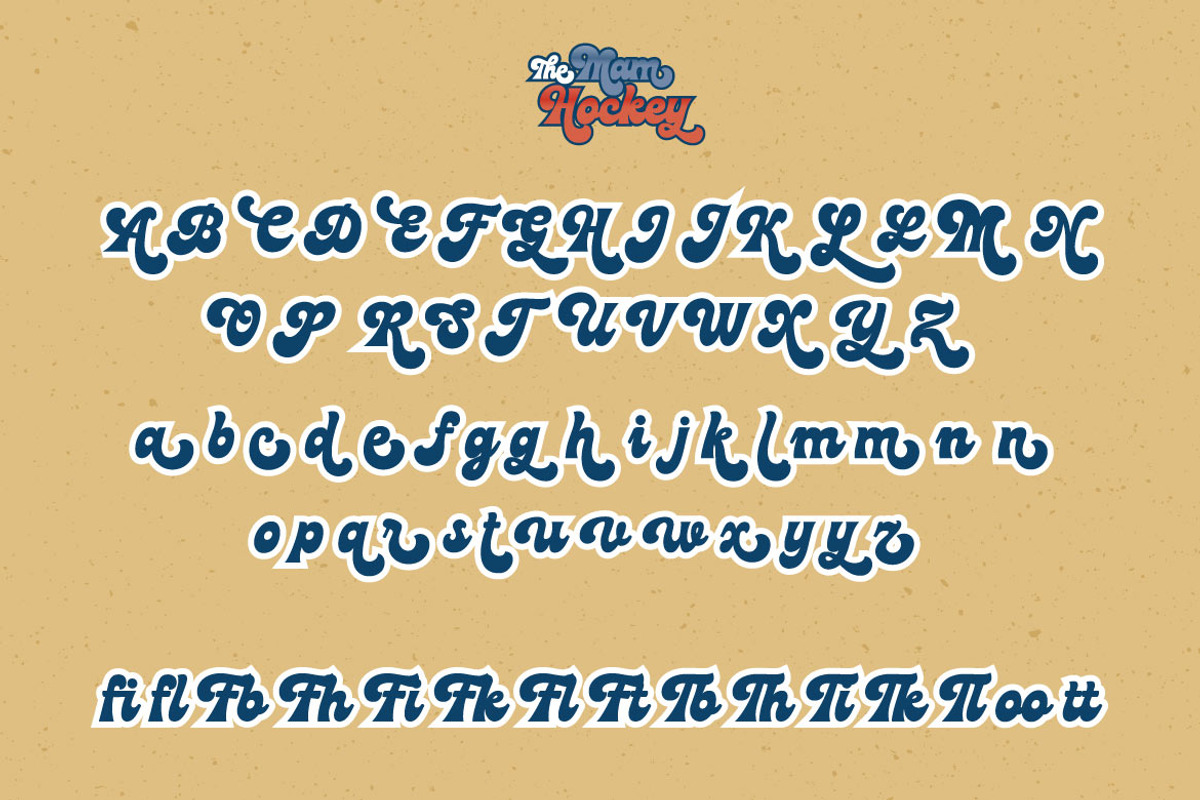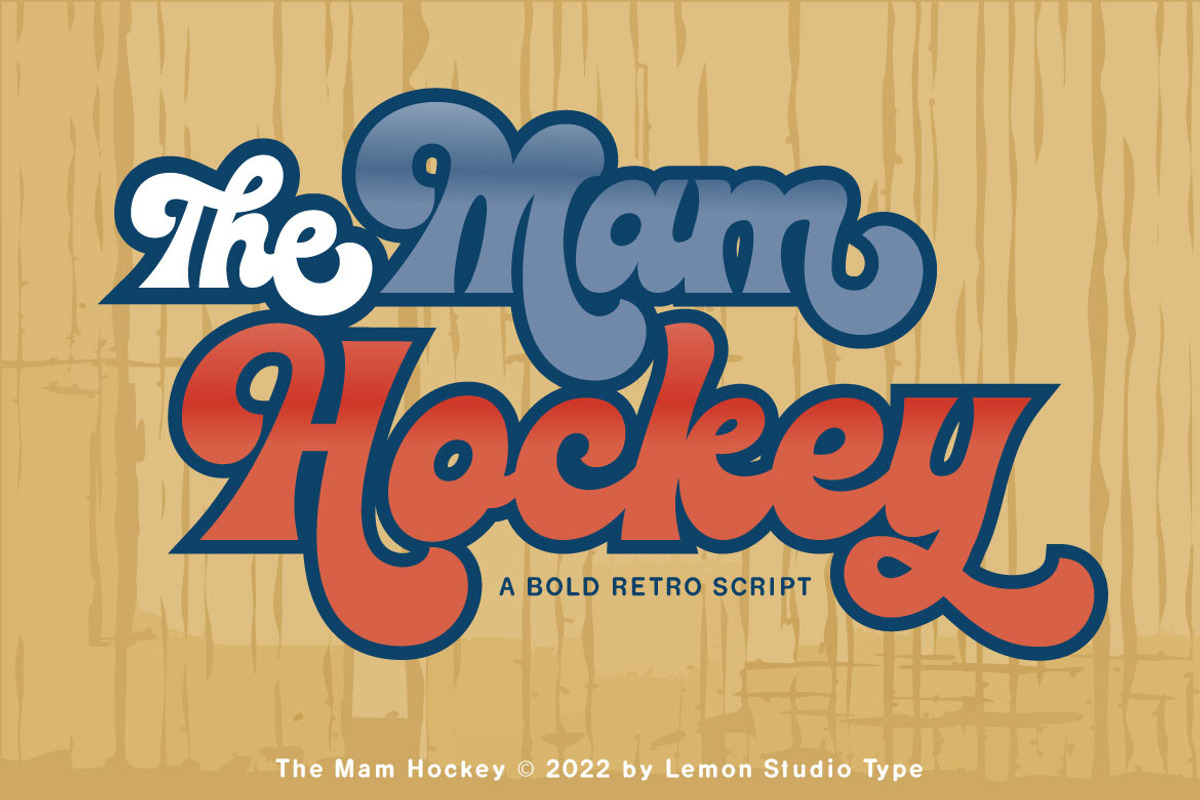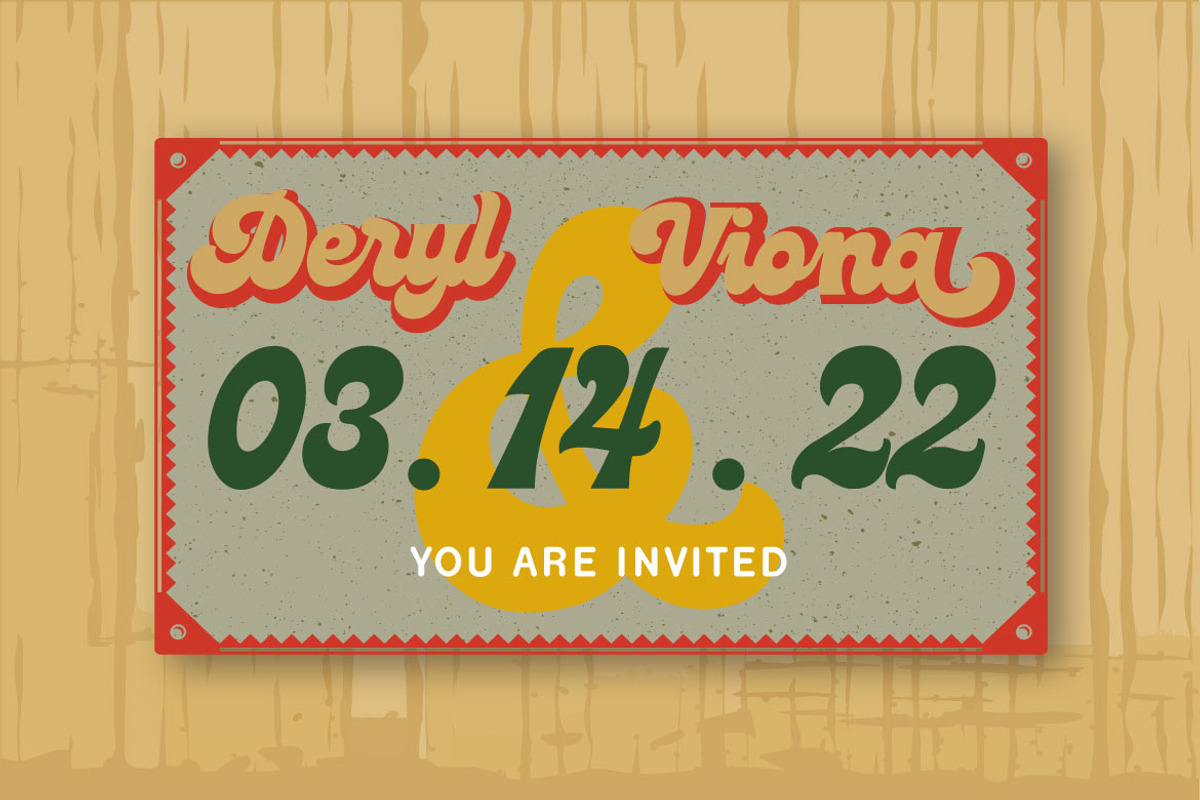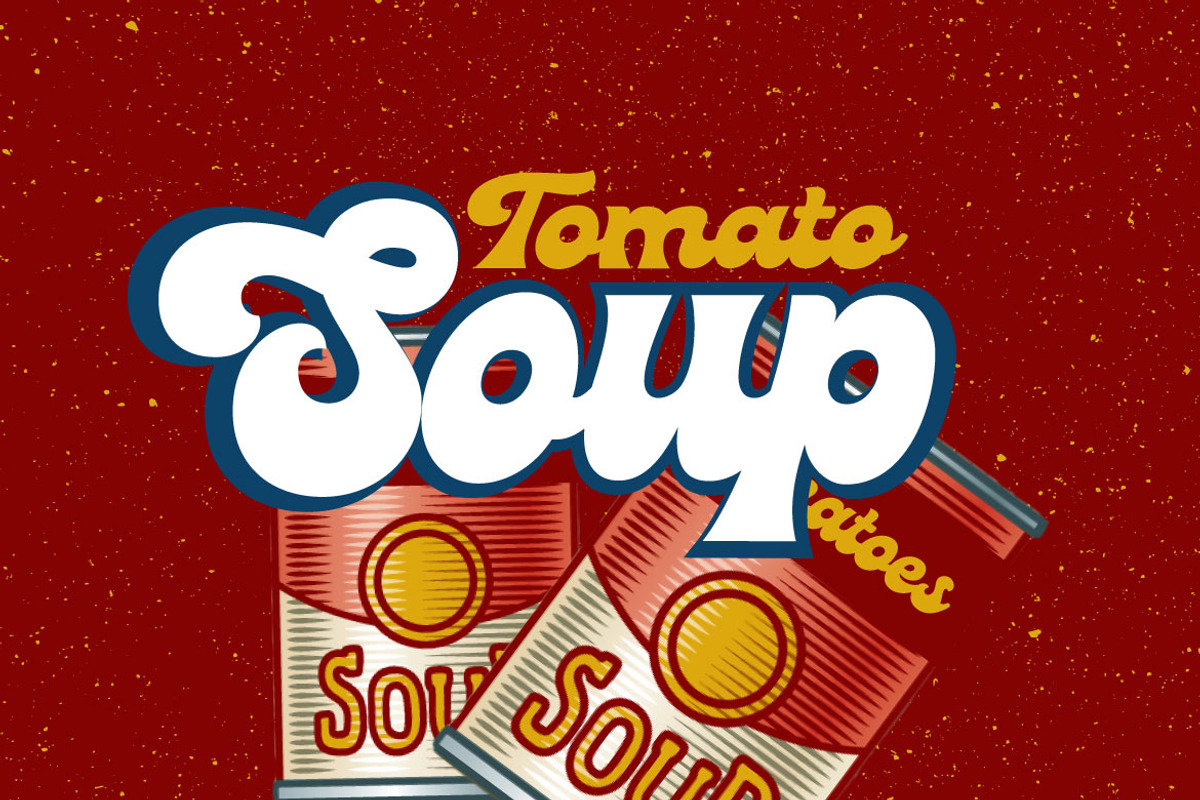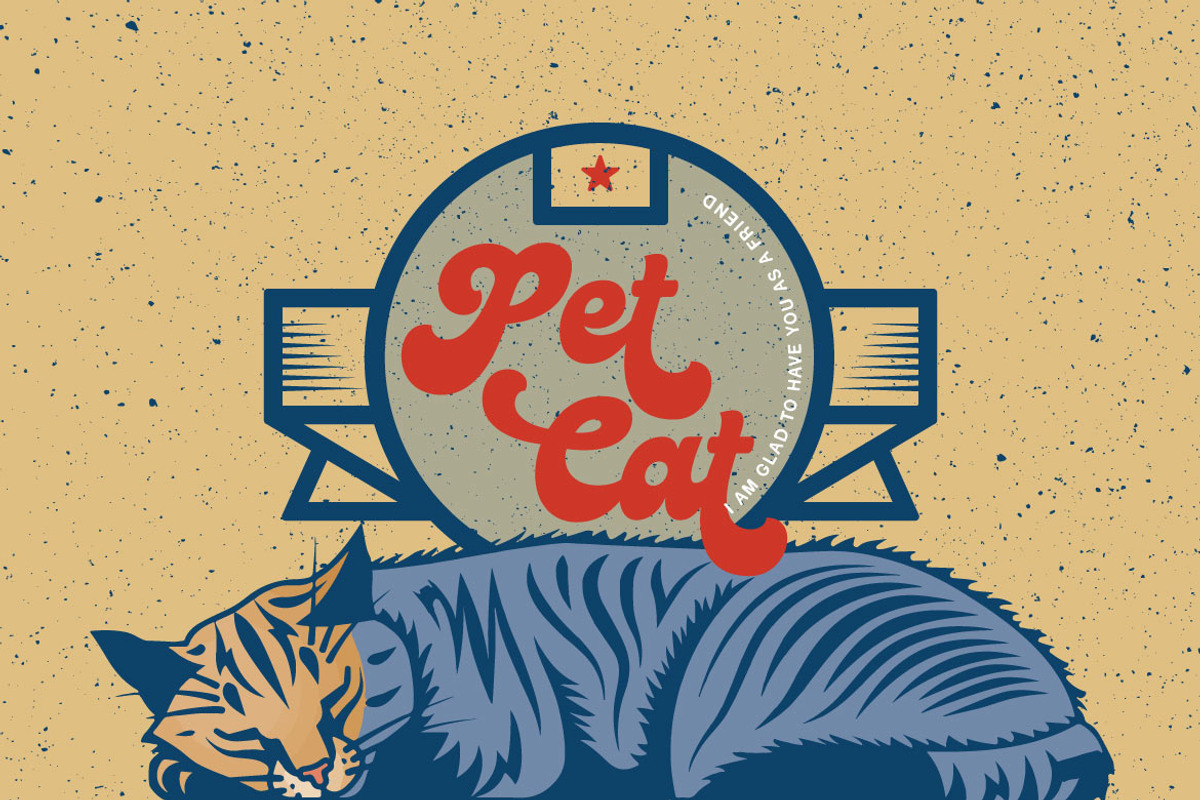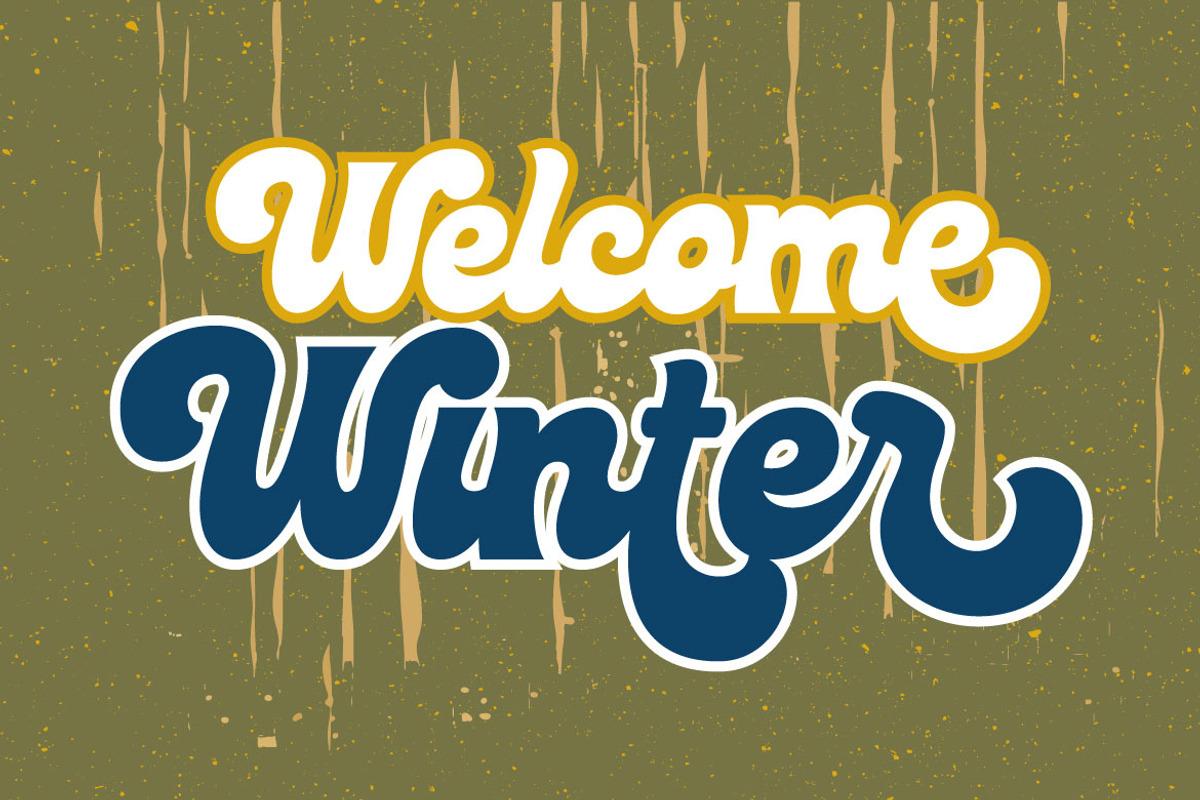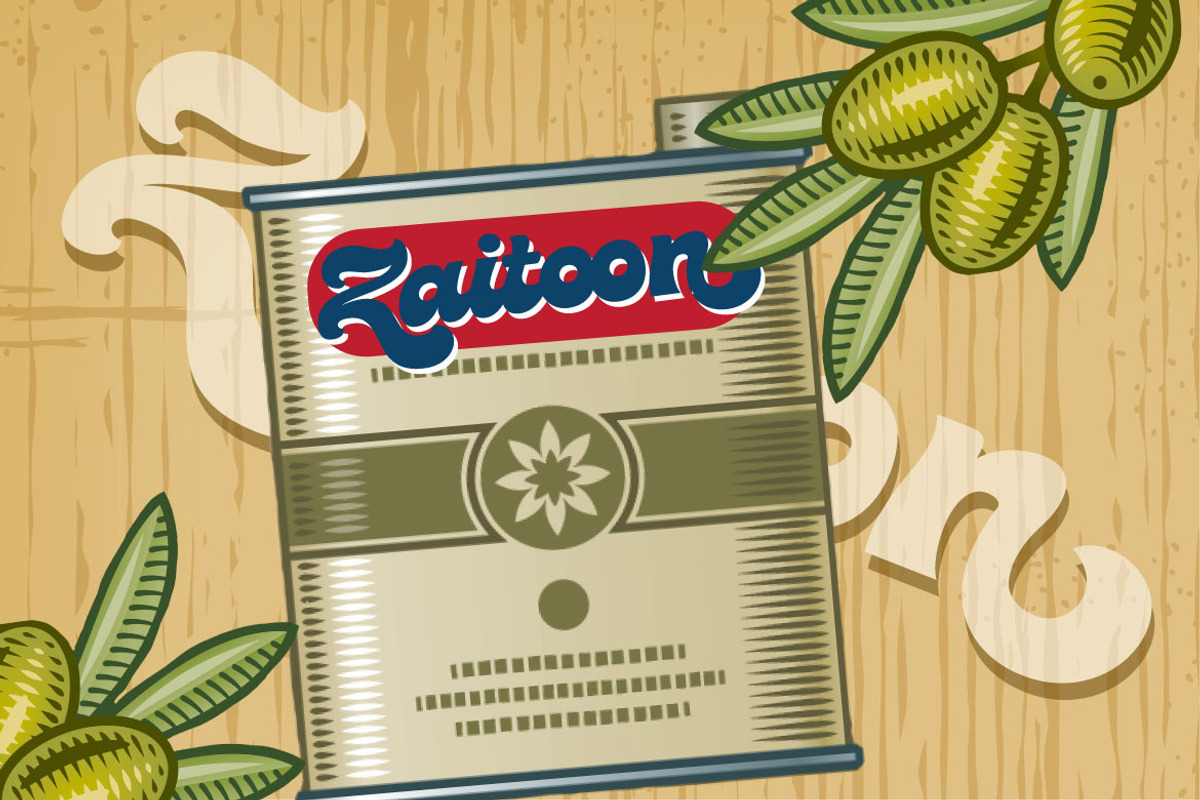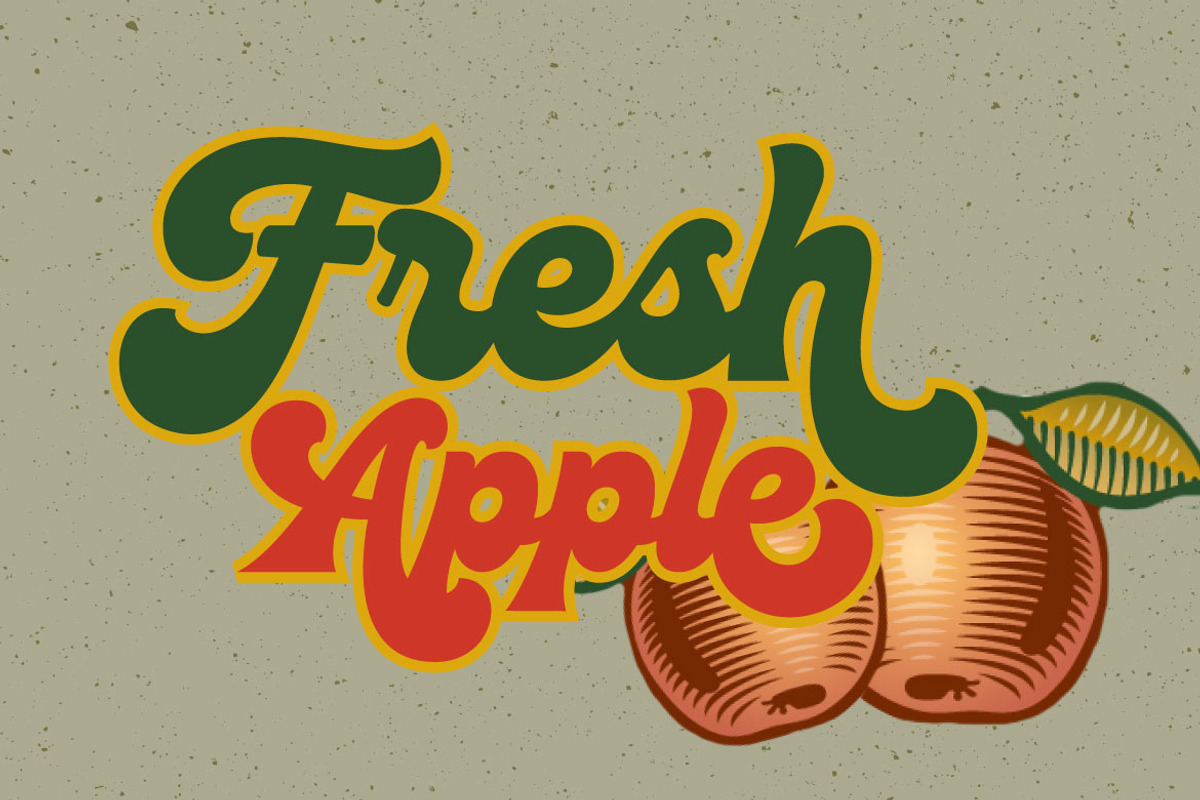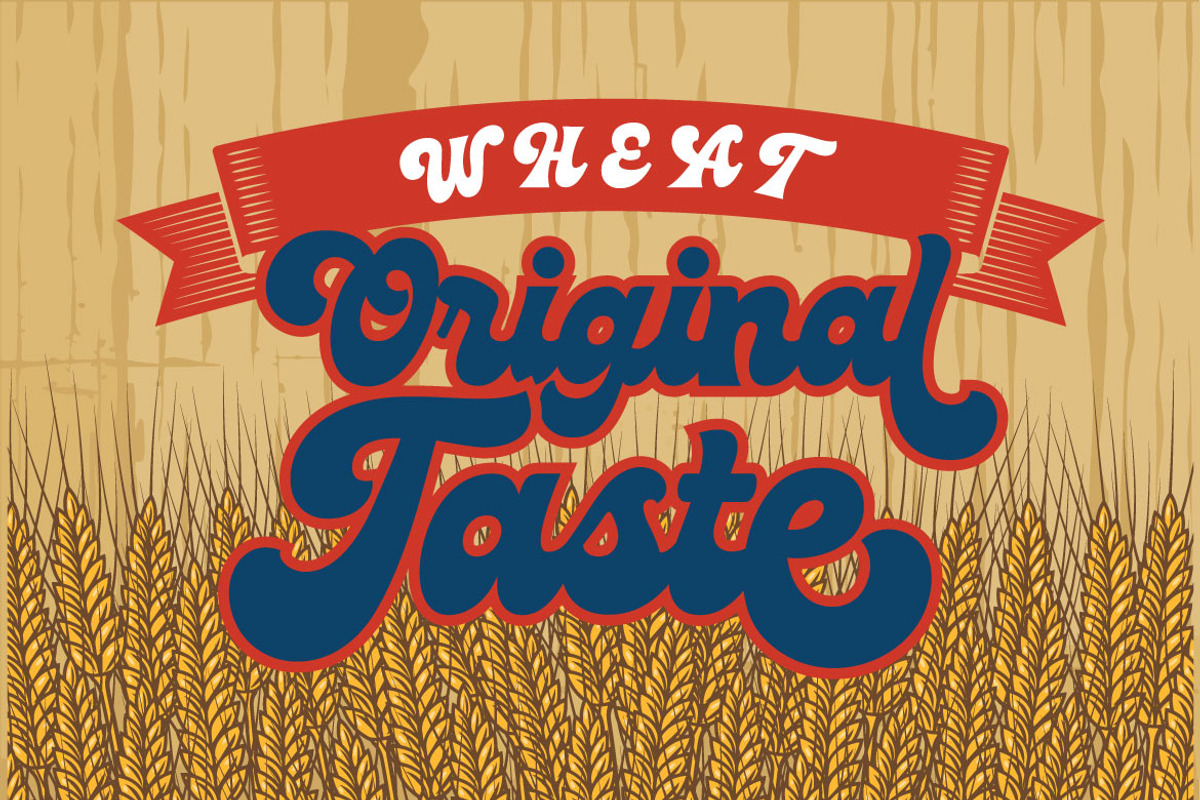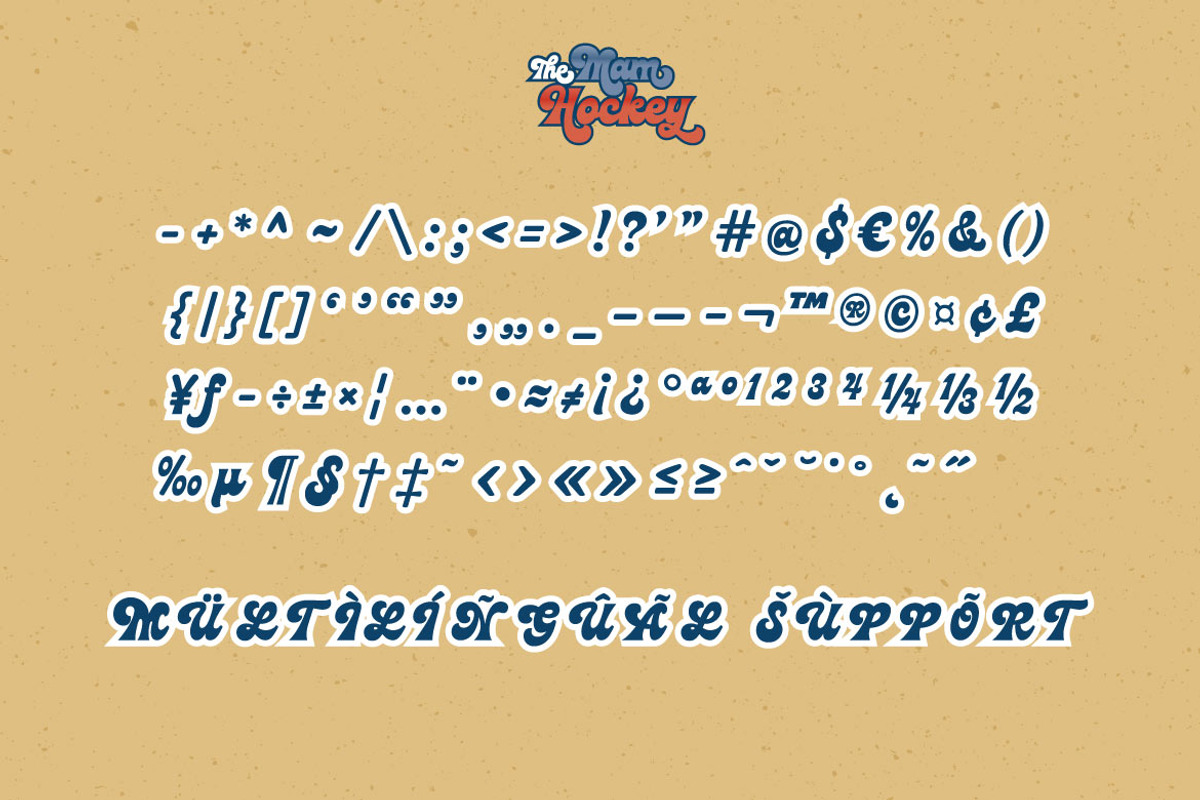
The Mam Hockey - Bold Script
The Mam Hockey is a retro font which is a bold script with a charming touch of style, this font also looks interesting because added several alternative features that you can use, such as ligatures, stylistic sets, superscript, etc. Combine it with additional extrude or effect styles into this font to make it look more attractive for your designs.
The Mam Hockey is very suitable for your retro design needs, in addition, you can use it for other important purposes that are more diverse. Use this font for typography, mockup, headings, brandings, wall art, street art, and many more.
-OPEN TYPE FEATURES:
-Stylistic Set
-Standard Ligatures
-Discretionary Ligatures
- Superscript
-Fractions
-Multilingual Support, etc.